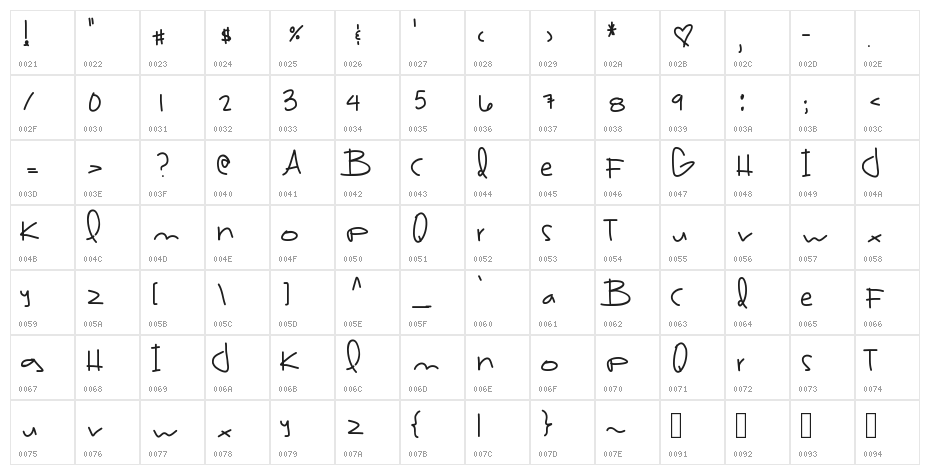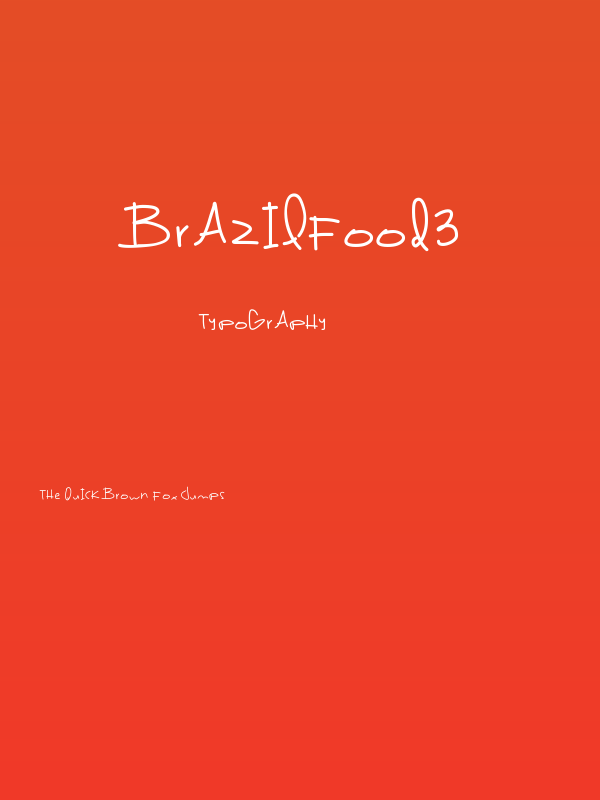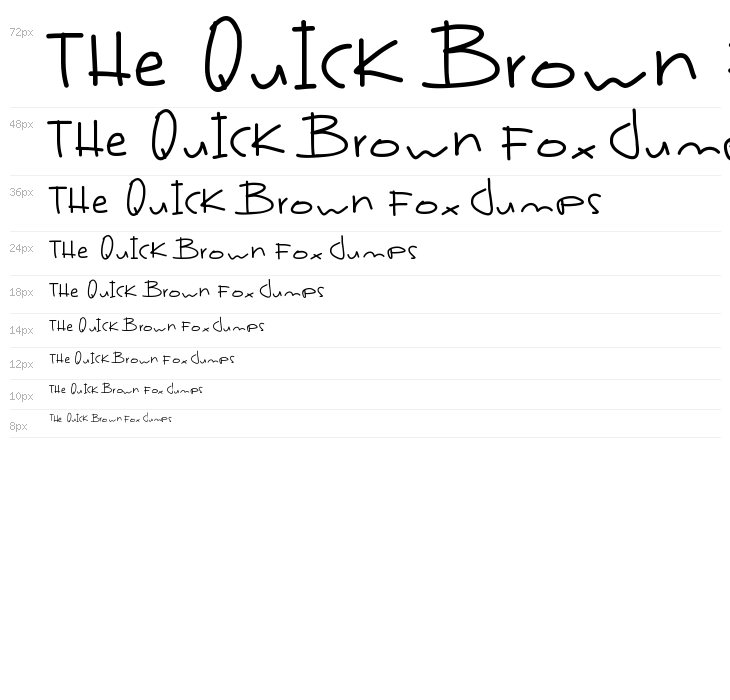
BrazilFood3 Font
BrazilFood3 Description
This font features a playful and casual handwritten style, characterized by its irregular strokes and informal appearance. The letters are slightly slanted, giving it a dynamic and lively feel. The uppercase and lowercase letters are distinct, with the uppercase being slightly larger and more pronounced. The numbers and special characters maintain the same whimsical style, ensuring consistency throughout. The font's overall look is approachable and friendly, making it suitable for projects that require a personal touch.
| Proposed Projects | Ideal for greeting cards, children's books, informal invitations, and playful branding. |